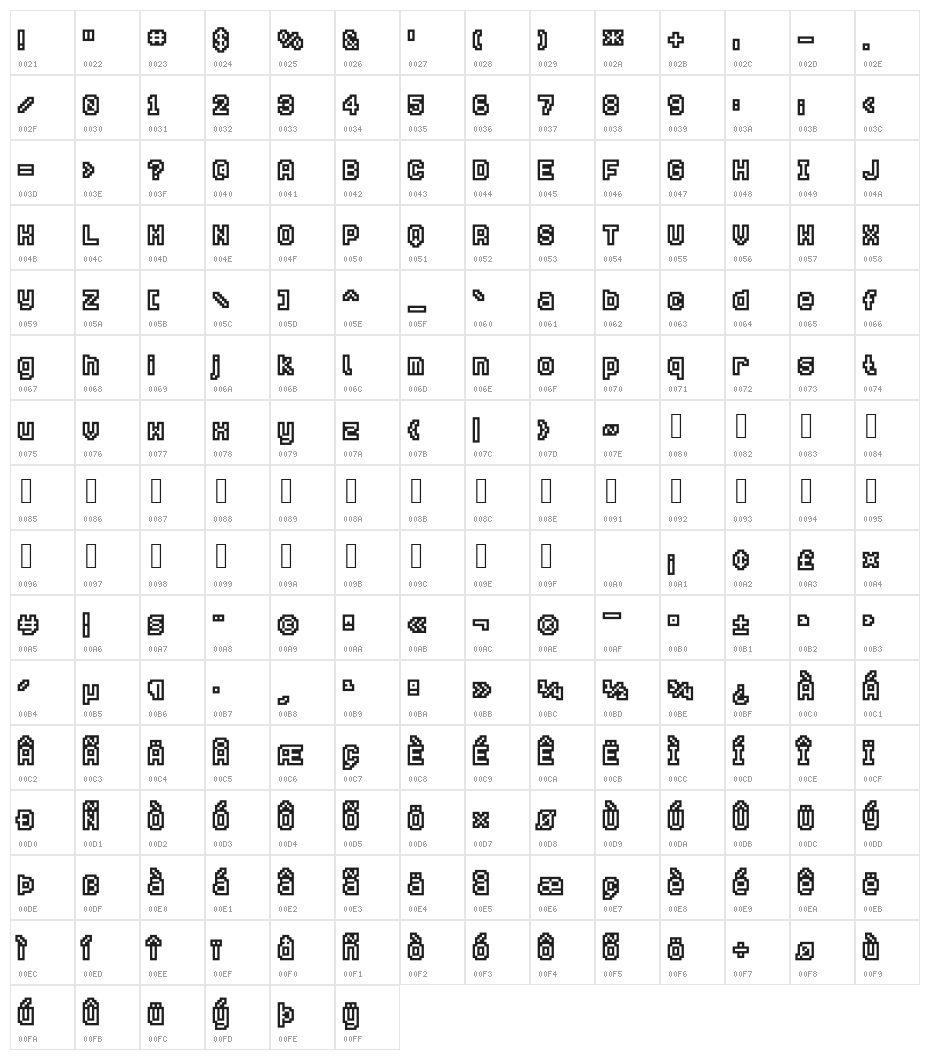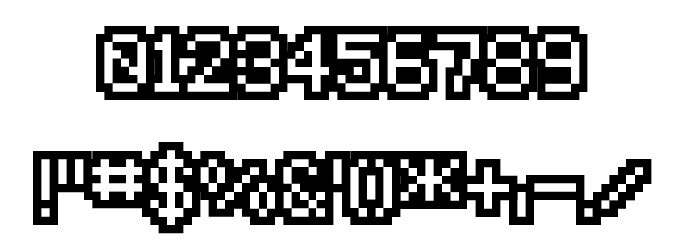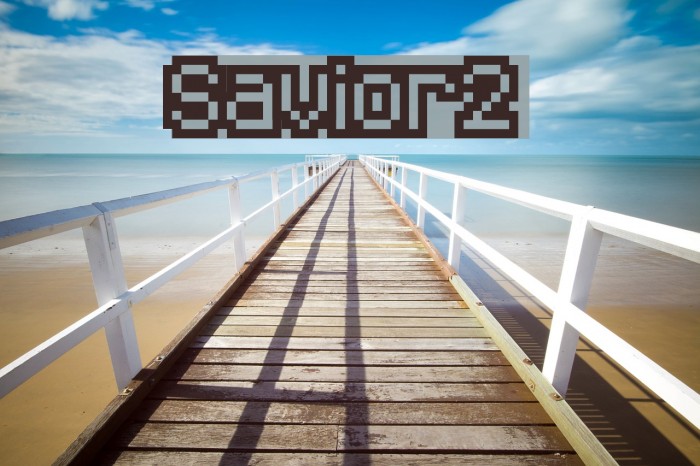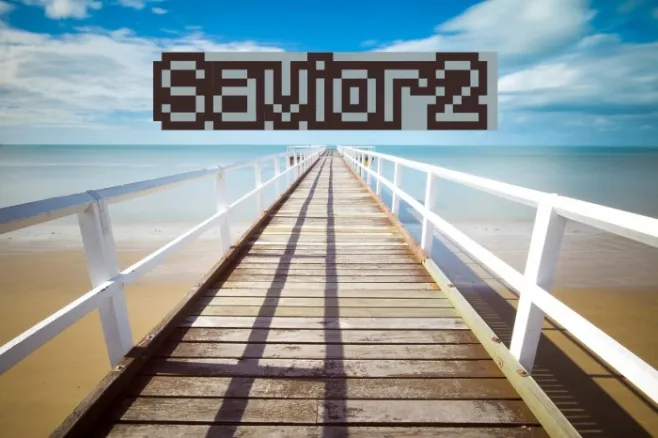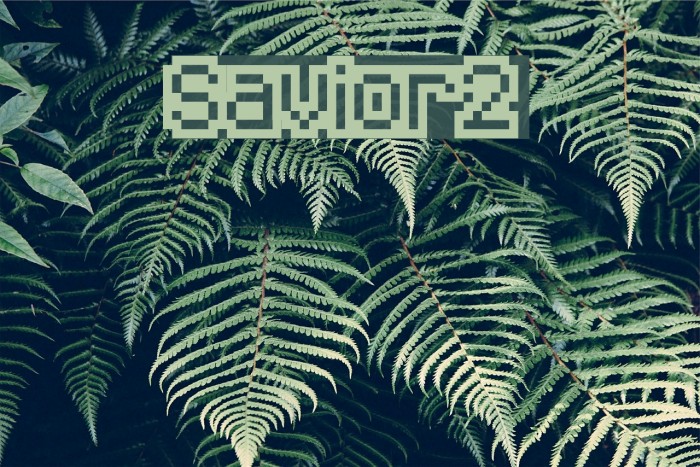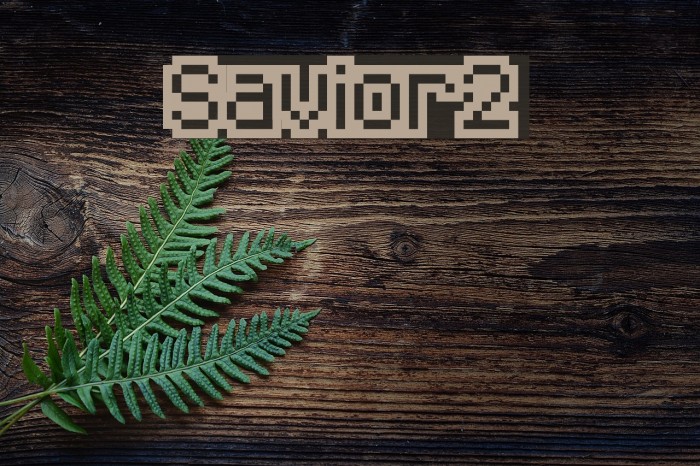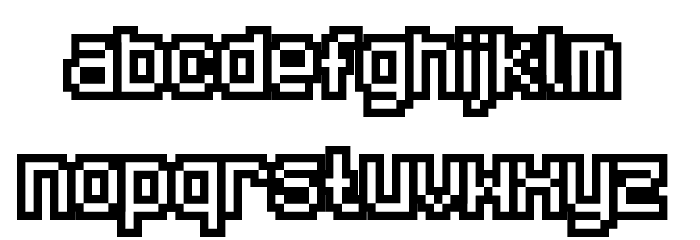
Savior2 Font
Savior2 Description
This font features a bold, pixelated style reminiscent of retro video games and digital displays. Each character is constructed with a blocky, grid-like appearance, giving it a distinctly digital and geometric look. The uppercase and lowercase letters maintain a consistent height, enhancing the uniformity and cohesion of the design. Numbers and special characters follow the same pixelated pattern, ensuring a cohesive visual experience across all text elements. The font's unique style makes it particularly suitable for projects that aim to evoke nostalgia or a tech-inspired aesthetic.
| Use Case | Headlines, Logos, Digital displays |
| Proposed Projects | Ideal for video game graphics, tech-themed posters, digital art, and retro-inspired designs. |